So I’m feeling that warm glow inside. You know… The kind that comes from doing something really good. Like, cutting those plastic ring thingies soda cans come in so birds can’t get caught in them, or not throwing my gum in the parking lot for someone else to step on. Warm fuzzies, y’all. I’m feeling a real validation in my calling… that we can help stop font abuse in our community.
Michelle recently wrote : …I am also 99% on my way to vowing to never use CS or Papyrus ever again. I feel blessed that you told us about those 2 fonts being what they are. I had no idea. It’s almost like someone told me there was spinach in my teeth, or that my skirt was tucked into my tights in the back…. a mixture of relief, humiliation & fear. SO GLAD I stumbled upon your blog!
No humiliation necessary, Michelle. You’re hilarious.
Let’s just squelch the remaining 1% urge. ;}
I shot the serif – via
And last but not least, this… Because I know you understand :
Here’s a little more font snob fun, but this time with some quick handmade font freebies.
I understand, again, if you’re too snobbish to use them. I mean, I am the prezzy after all. But I heard recently that Lobster is the new Comic Sans, which I totally disagree with. I mean, Scriptina, yes. Lobster… eh… give it a few more months at least before laying it to rest. I’m just not tired of it. Yet. There is no font safe from the wrath of tired users.
Except Helvetica.
A few rules. There are always rules.
1. These are really display fonts. Which means as headers, key words, or subtitles. Small bouts. Moderation. Easy on the excess, because they are what they are. Hand-drawn. Not finely tuned. It’s a love/hate.
2. If you use them as anything but the above mentioned uses, Scriptina will kidnap your dog and hold it hostage. Savvy? (Yes, I did watch Pirates of the Caribbean with my son on the teli last week.)
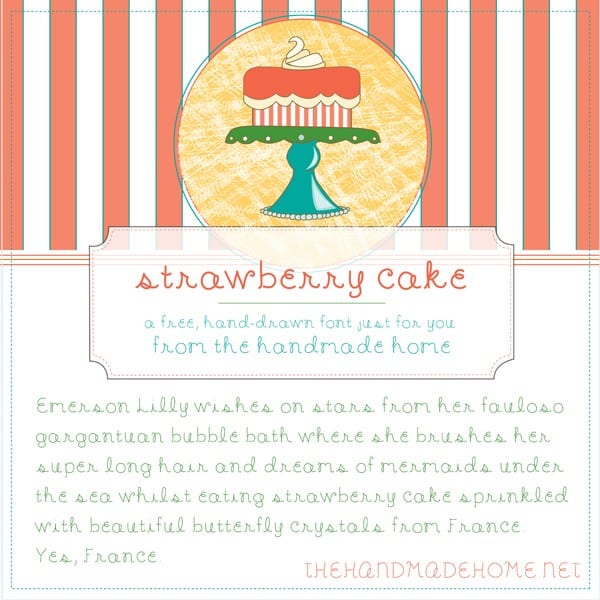
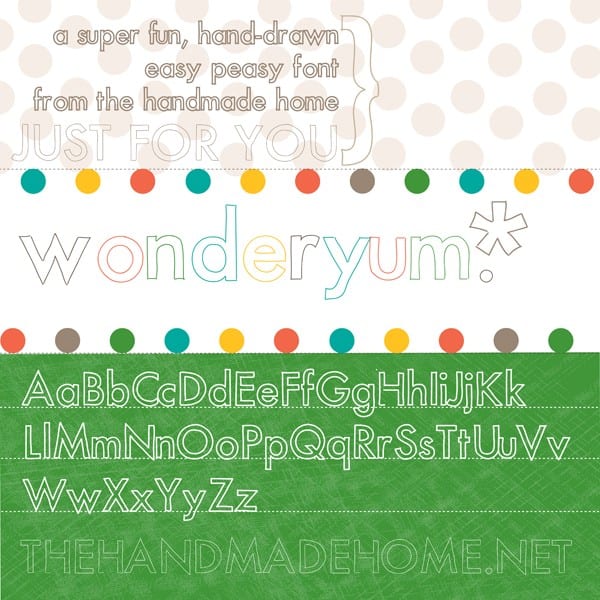
I suffer from immense humiliation, also; for my wedding program (circa 2005) was typed completely in Papyrus. : /
Haha! When ya know better, ya do better. ;} I think at some point in our lives, we’ve all made a font mistake… I’ve been complaining about fonts since 1998. ;} There’s still time!
“I shot the Serif”, made me LOL.
such a wealth of font wisdom!! Always love your new and expressive additions to my font vocab. I am hosting a wedding shower – southwestern’ish theme – and want to do a big sign like your FAB 5, for the bride and groom. Any suggestions on the perfecto font????
Hey Sally! The fatter the better, with this project. It’s easier to manage, and the contrast is more striking with the paint on stain look. Anything san serif but for this project I believe we used a version of Helvetica. Classic and simple will last longer on those walls! ;}
Love strawberry cake – both the font and the cake.